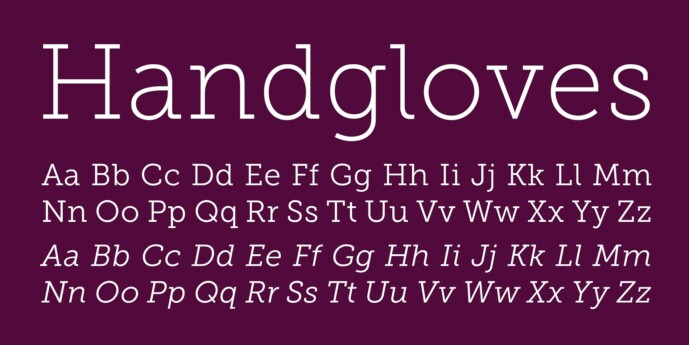
Museo Slab Font Family
Designer: exljbris
Museo Slab Font Family is robust slab serif with Museo’s friendliness. It is a perfect match for Museo Sans.